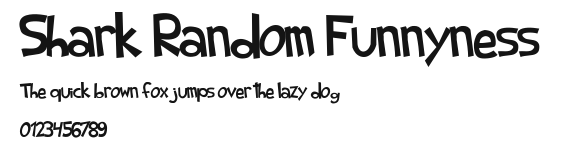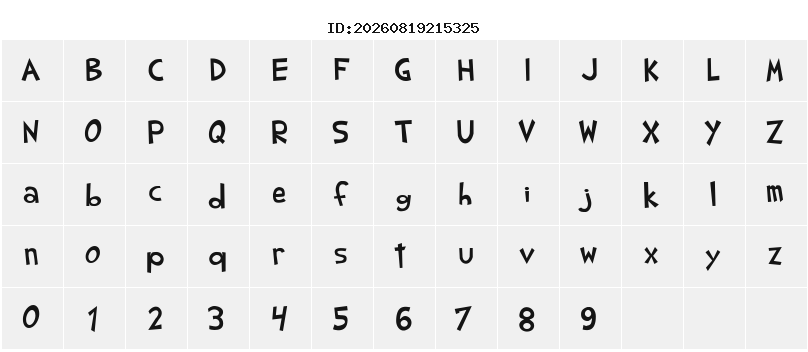
• Font Name: Shark Random Funnyness
• Full Font Name: Shark Random Funnyness
About Shark Random Funnyness.ttf
Shark Random Funnyness.ttf is a modern, elegant sans-serif font designed for ultimate readability and visual harmony. Perfect for branding, headlines, web design, and print materials.